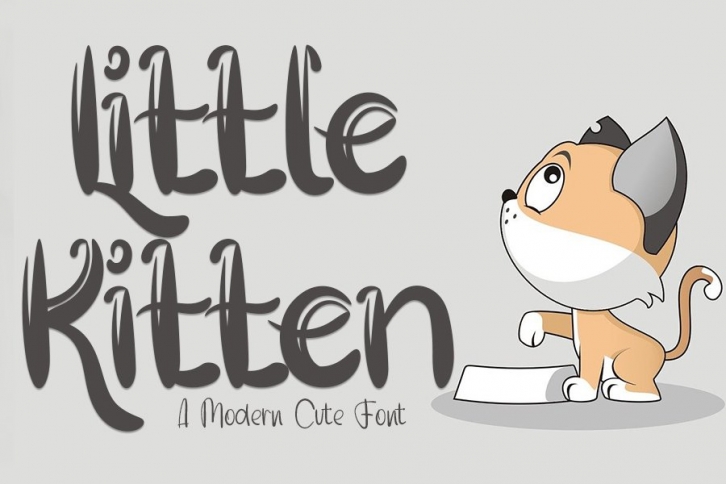
Little Kitten is a gorgeous font that was realeased on April 19, 2021. The font can be used in many style contexts and design environments. Perfect for invitations, magazines, websites, logos, and more! It was designed by InermediaSTUDIO and the file size is 21.97 MB. Thanks for checking out this font!